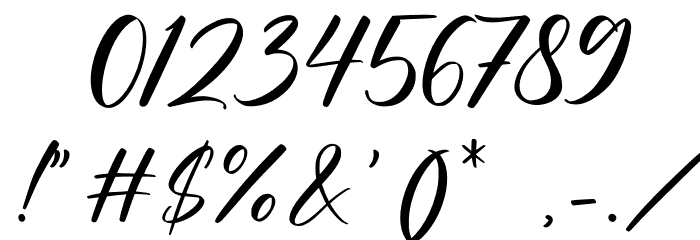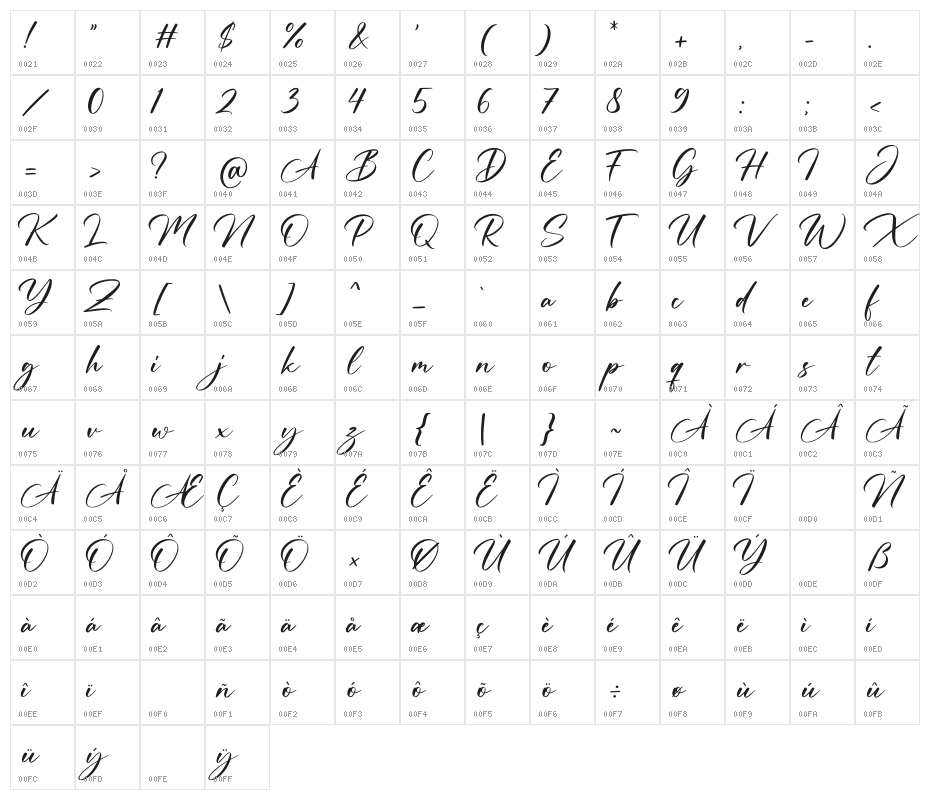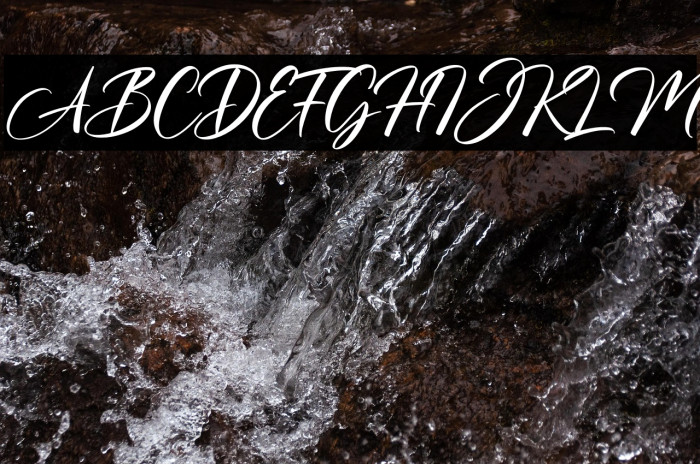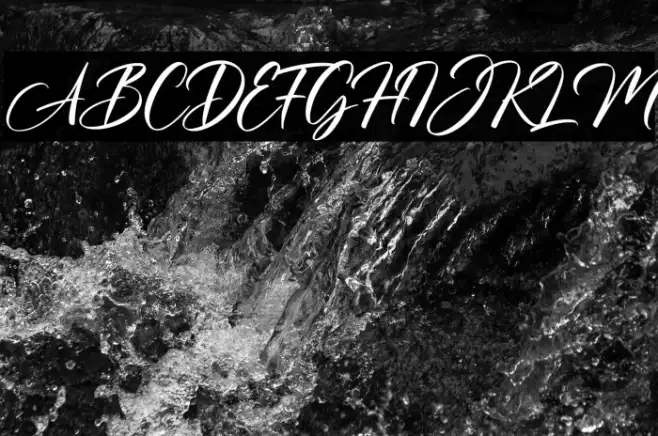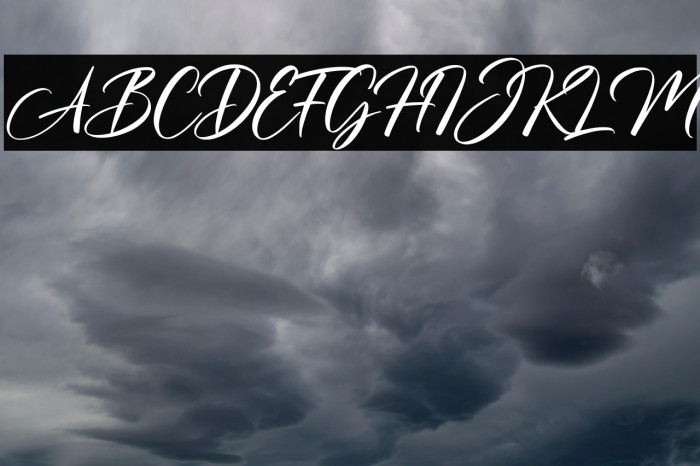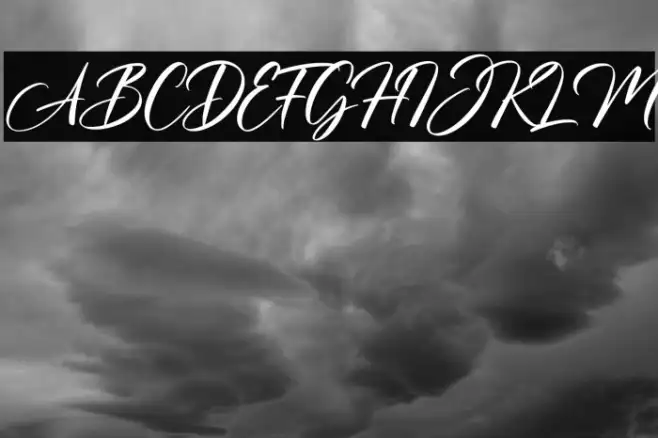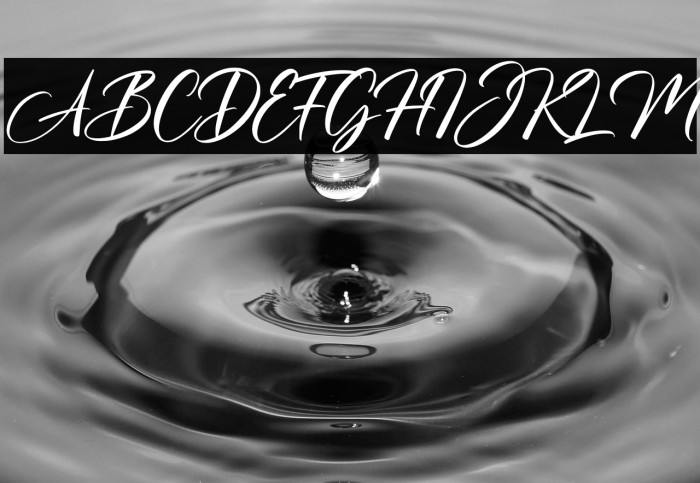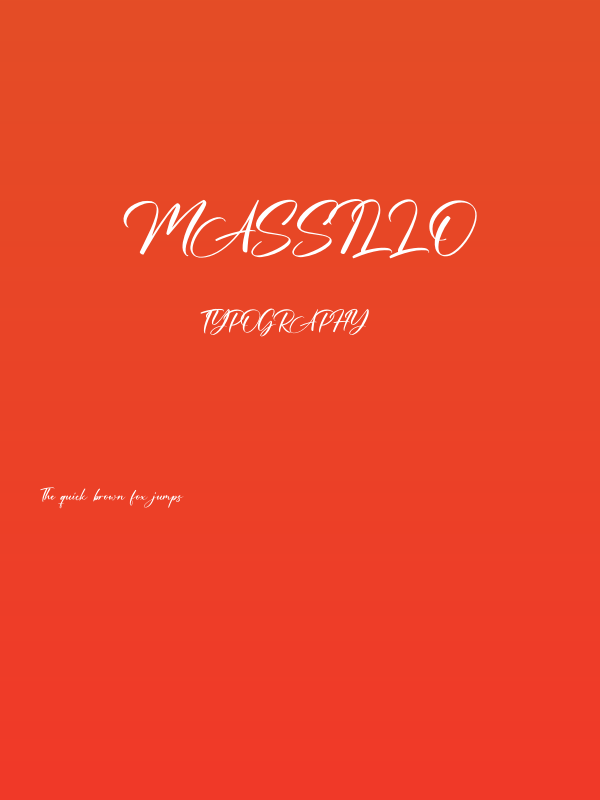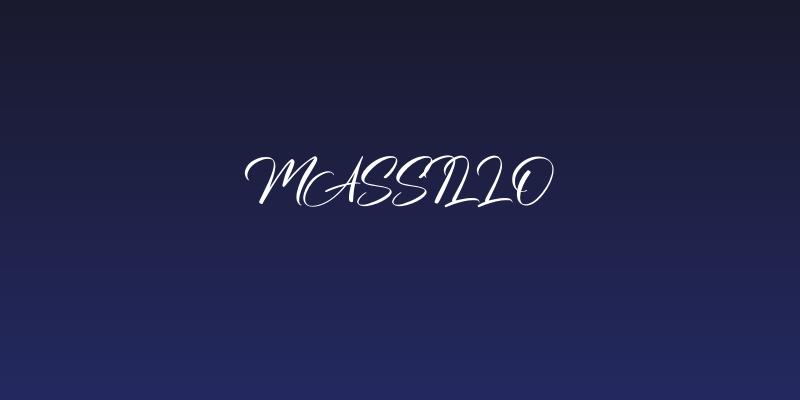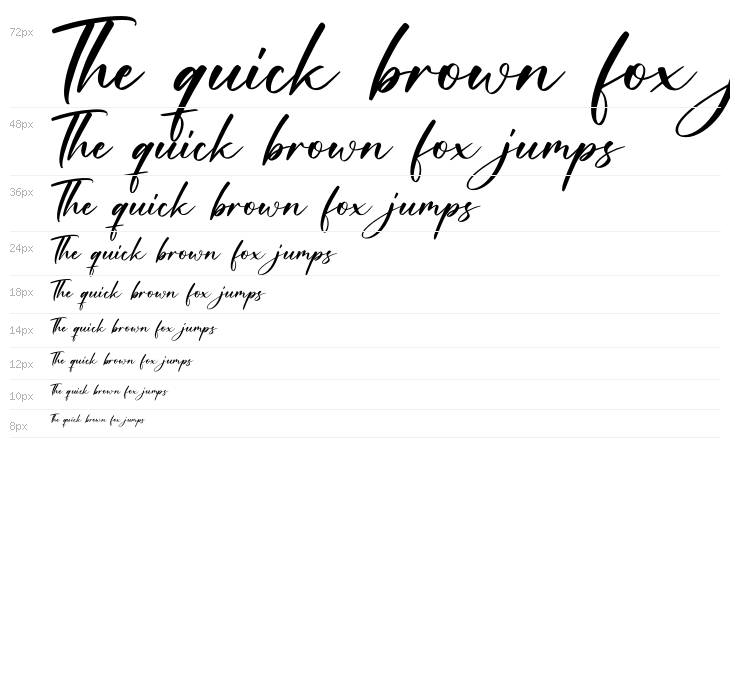
Massillo Font
Massillo Description
This font features an elegant and flowing script style, characterized by its smooth, cursive strokes and graceful curves. The uppercase letters are ornate and slightly exaggerated, giving a sense of sophistication and flair. The lowercase letters maintain a consistent flow, enhancing readability while preserving the decorative nature. Numbers and special characters are designed to match the overall aesthetic, with a harmonious blend of curves and loops. This font exudes a sense of elegance and is perfect for projects that require a touch of class and refinement.